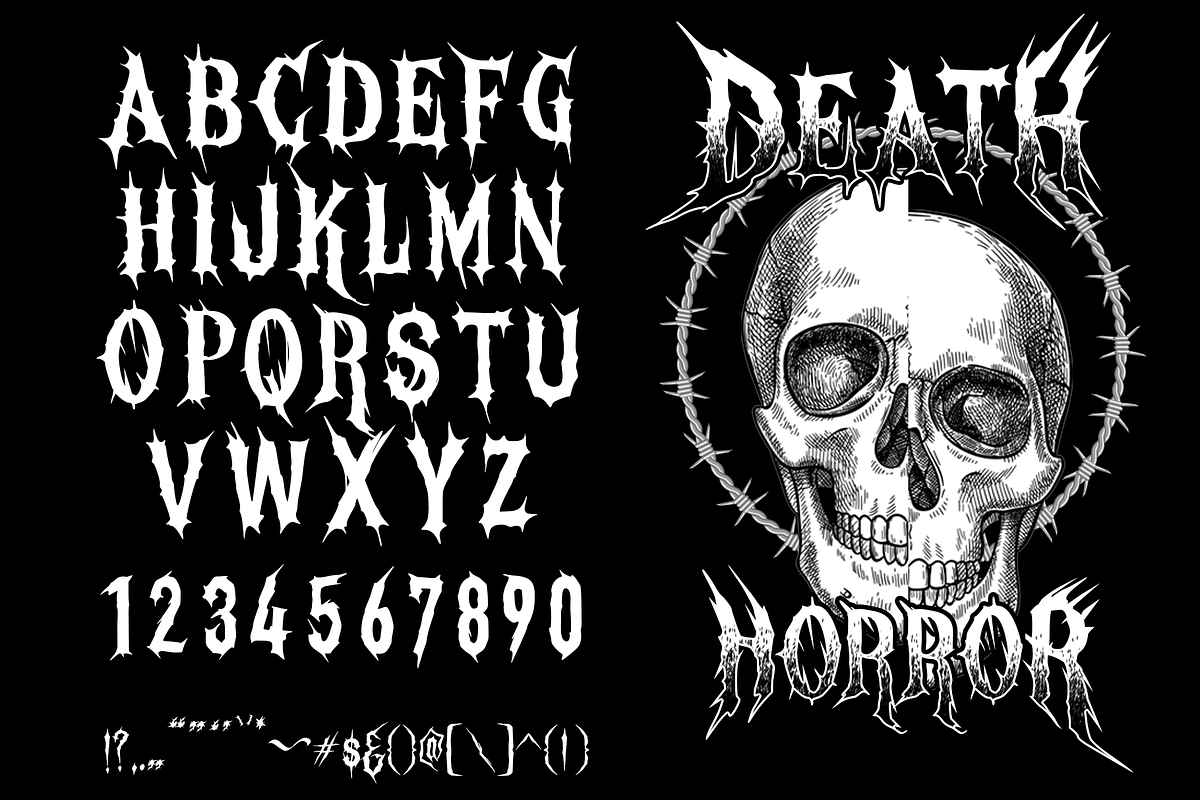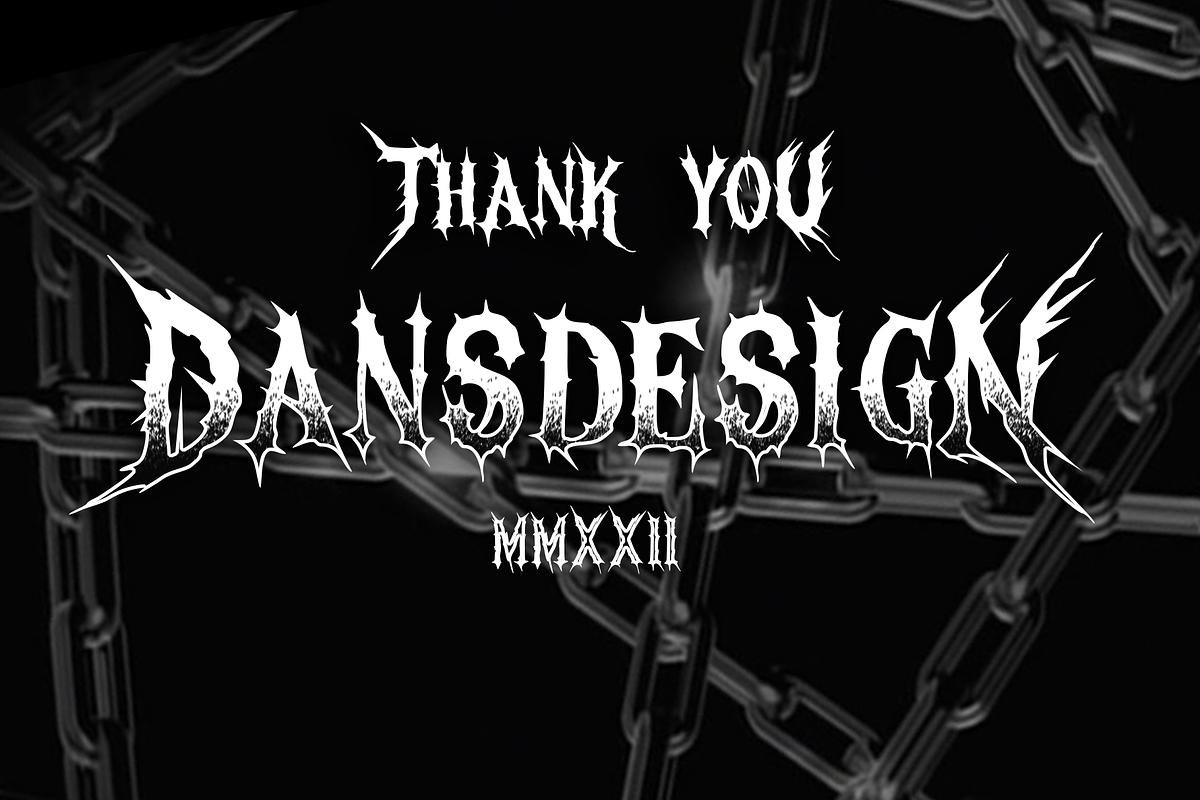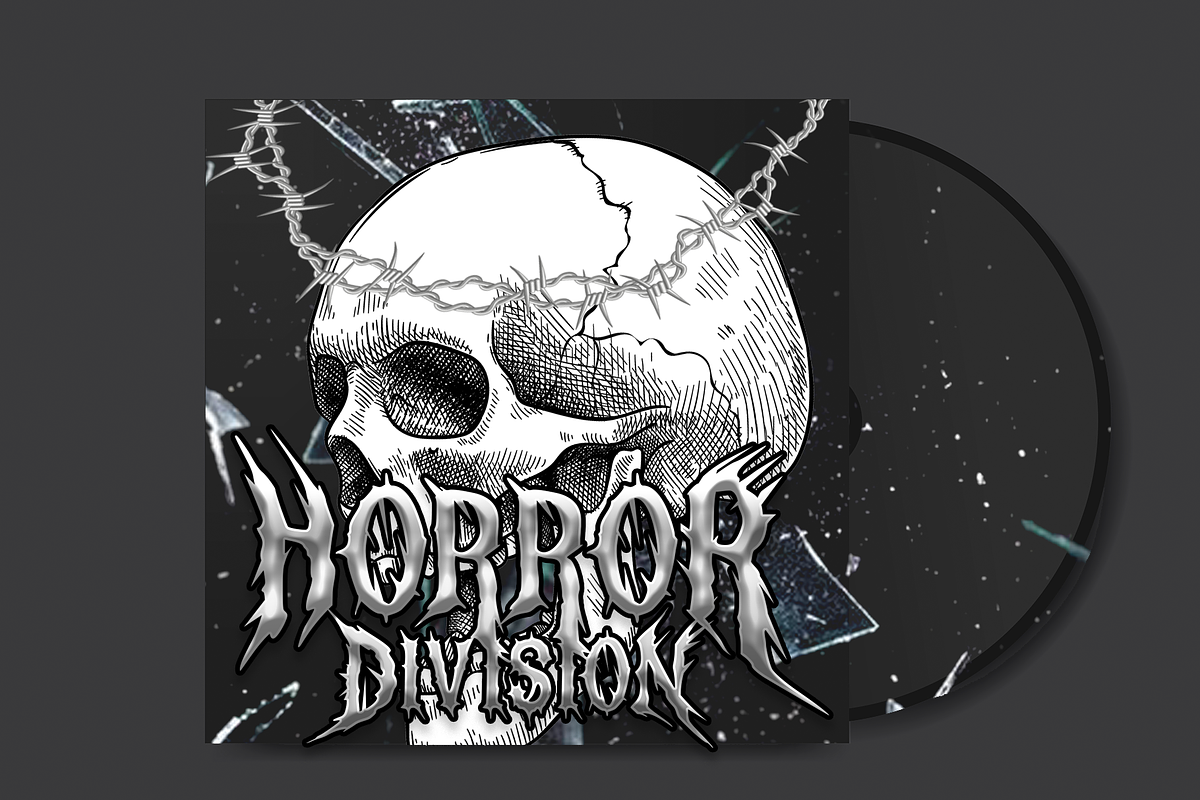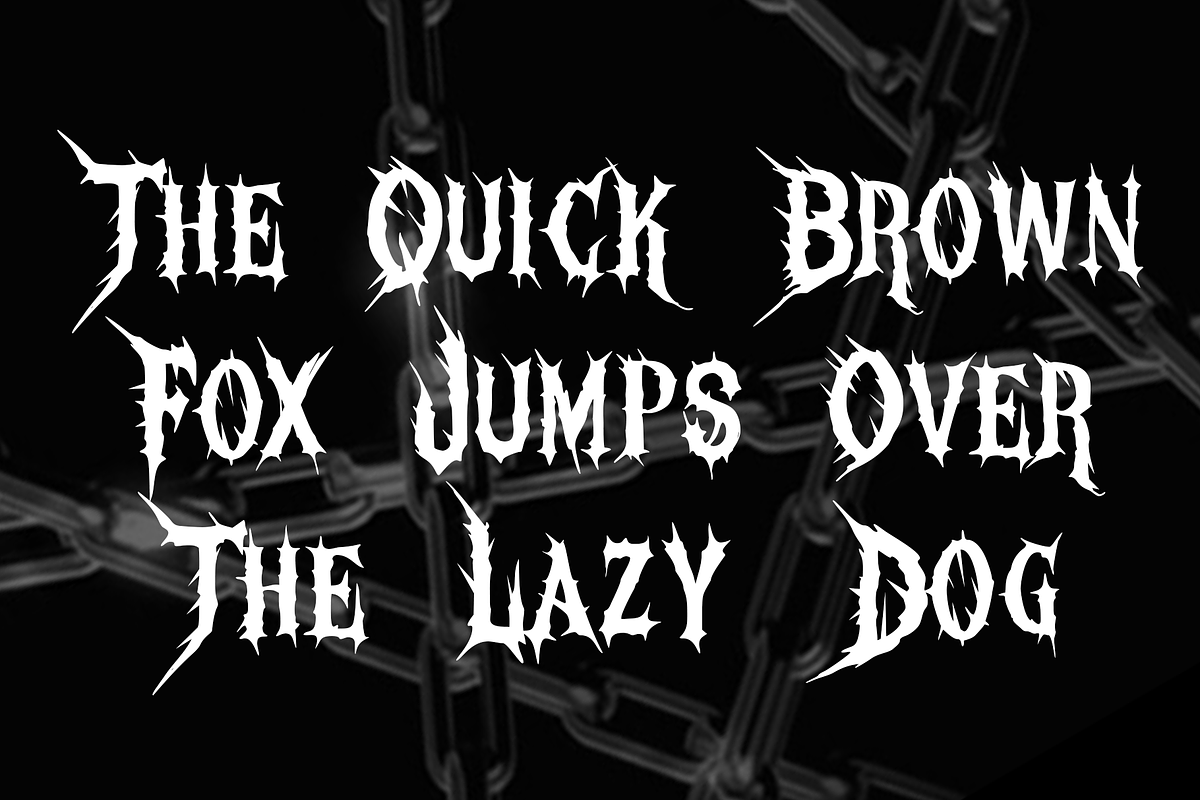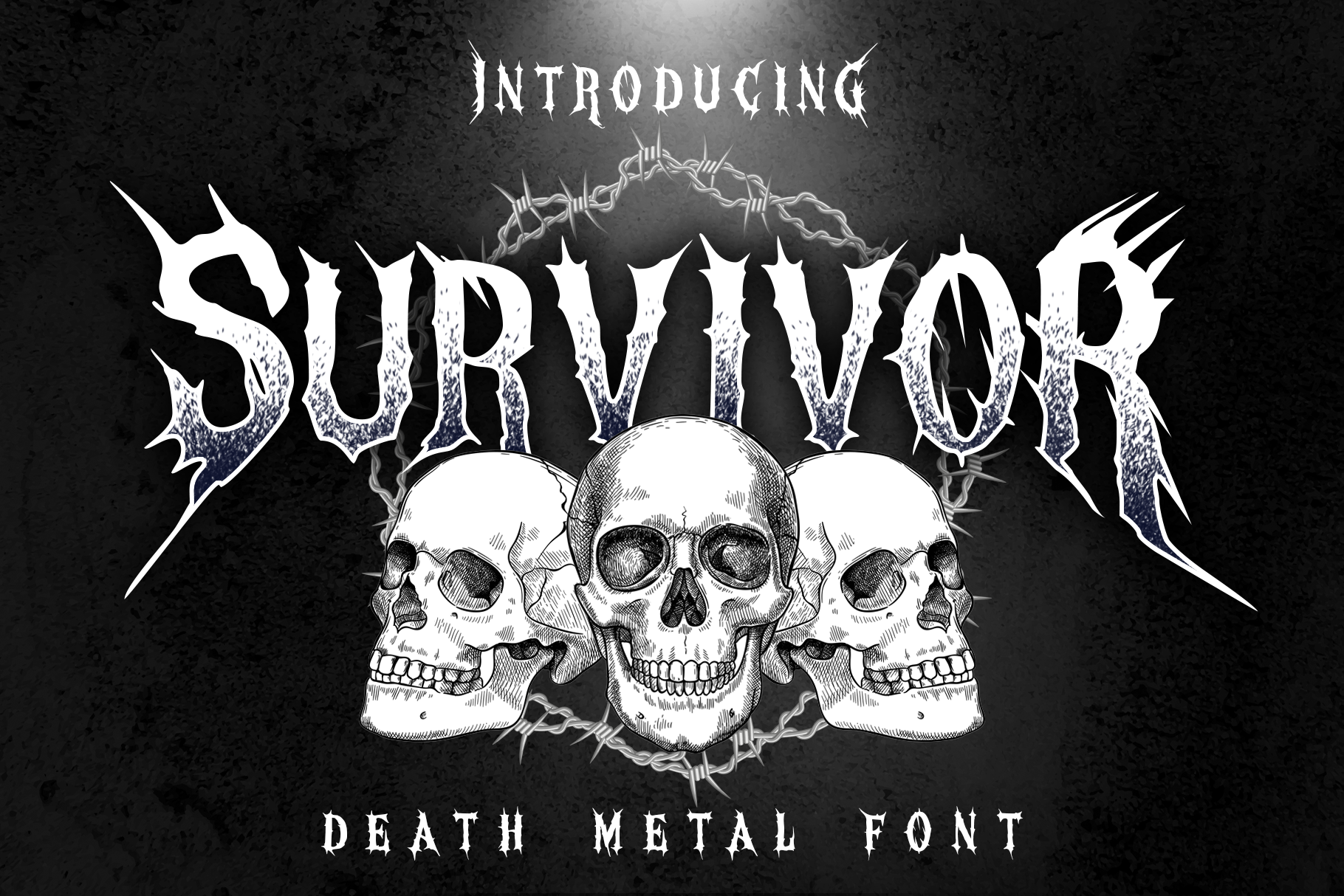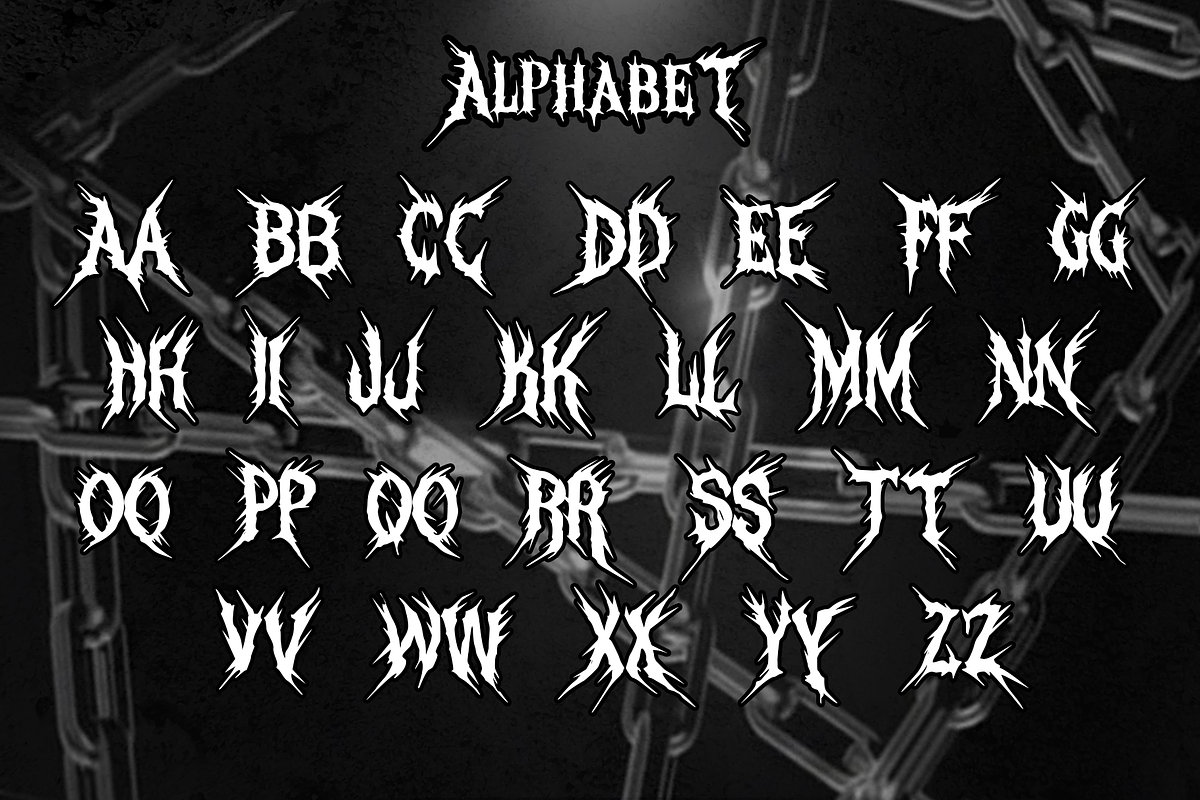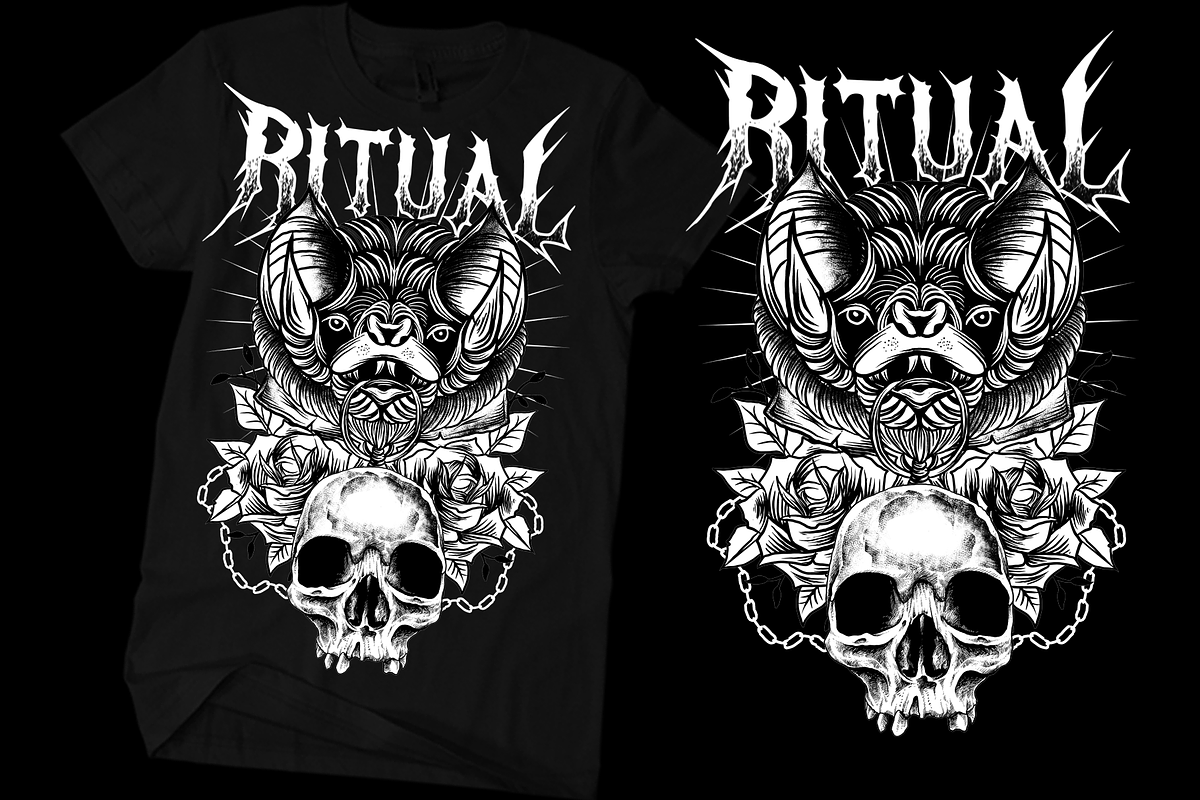
SURVIVOR METAL FONT
Dansdesign Proudly present SURVIVOR METAL FONT font, This font is made with references to various letters that I combine and design with my style. SURVIVOR are great and usefull for product logo, poster title, headline, packaging, badge, poster, card logo, clothing brand logo, Vintage design and much more